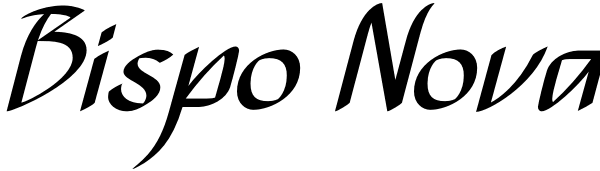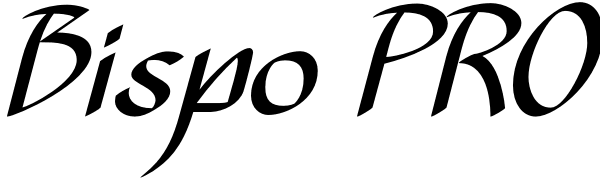
Bispo
Bispo is a script typeface family made based on italic chancery calligraphy. After one year of it first launch, Bispo family now has another variant, a Bispo Pro version. The Pro version now contains more than 450 glyphs and new OpenType features...
Bispo Nova
Bispo PRO